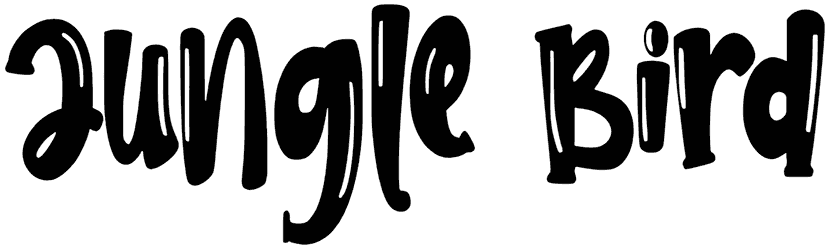
Jungle Bird Font
This suggestion can make you eager cause it will add a fun flavor to your project with the jungle font, Jungle Bird. As a fancy font, it has a cute vibe with its bold shape, and you can use it to display logotypes, posters, stickers, apparel, and other kinds of stuff. Just use Jungle Bird and watch the whimsical mood it is able to make.